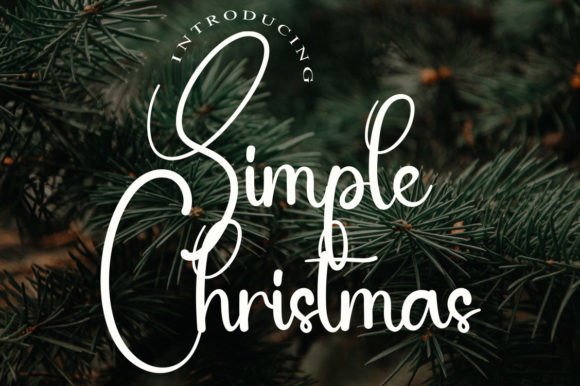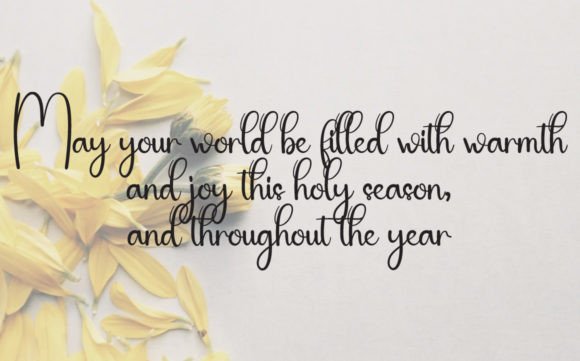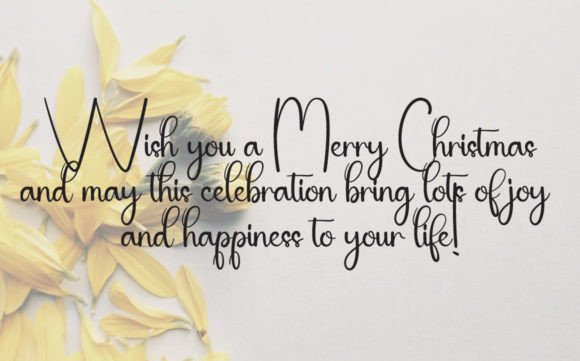
Simple Christmas Font
Add a simple and neat touch with the Simple Christmas font. This handwritten script is perfect for a wide range of creative projects. From greeting cards to headlines, it adds a natural and warm feel to your designs.
The Simple Christmasfont is highly versatile. You can use it for invitations, branding, social media posts, posters, and more. Its clean style brings simplicity and charm to your work.
Each character is crafted with smooth and clear strokes. This creates a polished yet natural look. The font balances readability with artistic flair, making it ideal for logos, quotes, headlines, and decorative text.
Despite its simple style, the Simple Christmas font remains readable at various sizes. Whether used for bold titles or subtle accents, it adapts perfectly. Its flexibility makes it suitable for many creative applications.
Using this font will help your projects stand out. It adds a friendly and natural vibe. If you want your designs to look simple yet polished, the Simple Christmas font is an excellent choice.
In summary, the Simple Christmas font fits many design needs. From greeting cards to branding and social media, it brings warmth and simplicity. Download it today and create beautiful, versatile designs with a neat handwritten script.